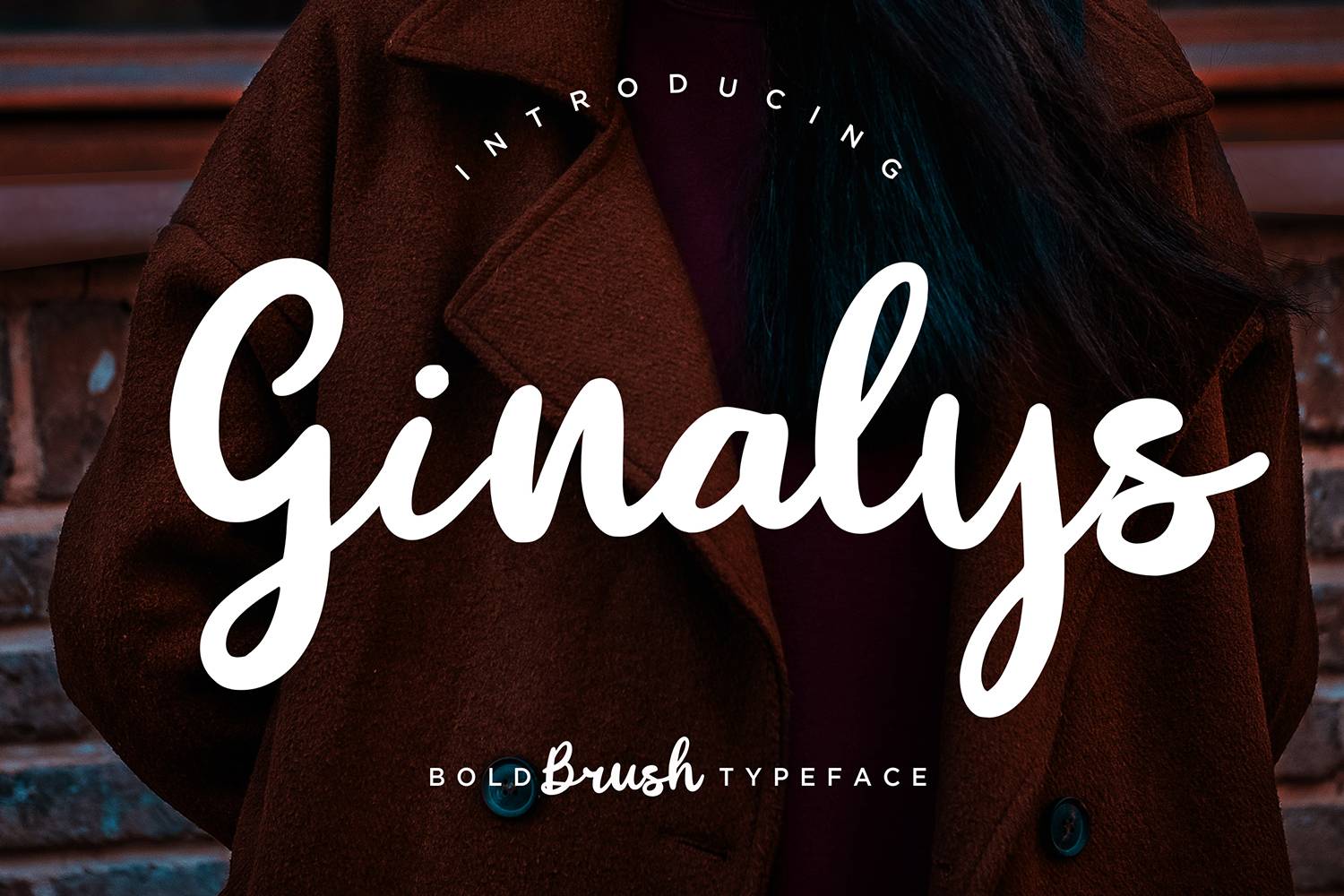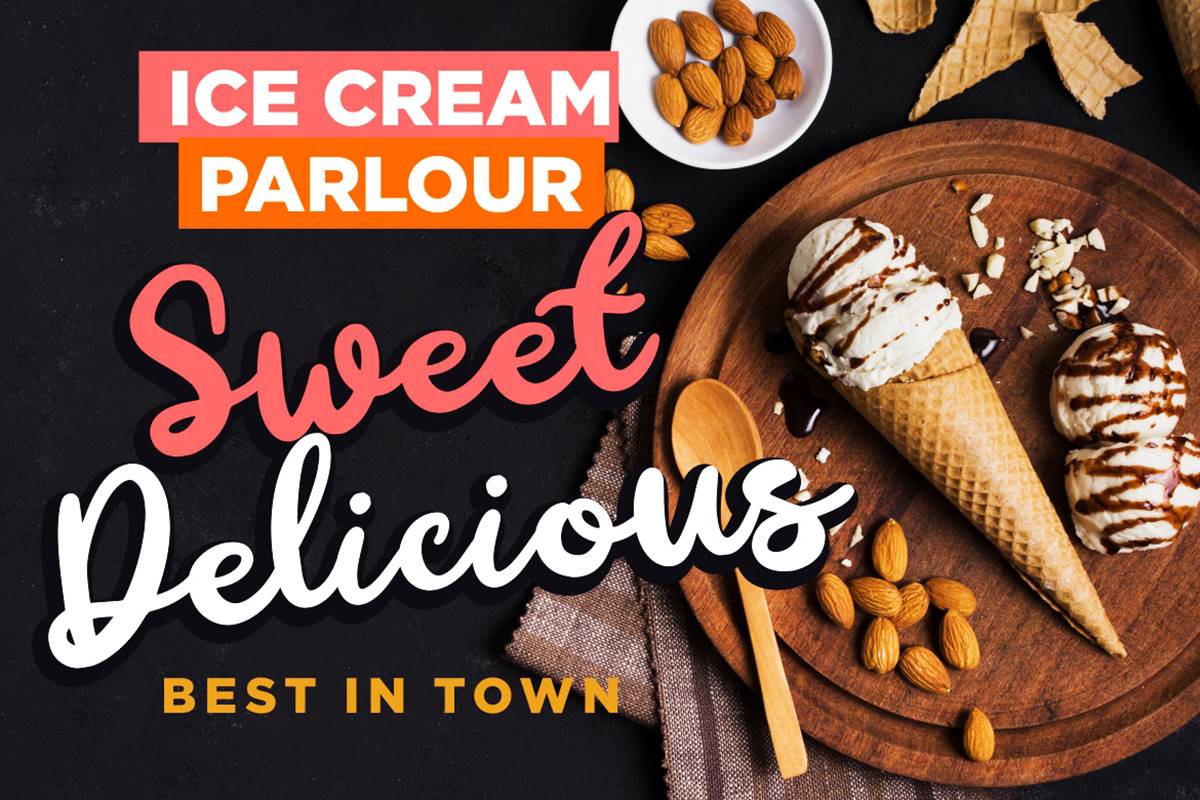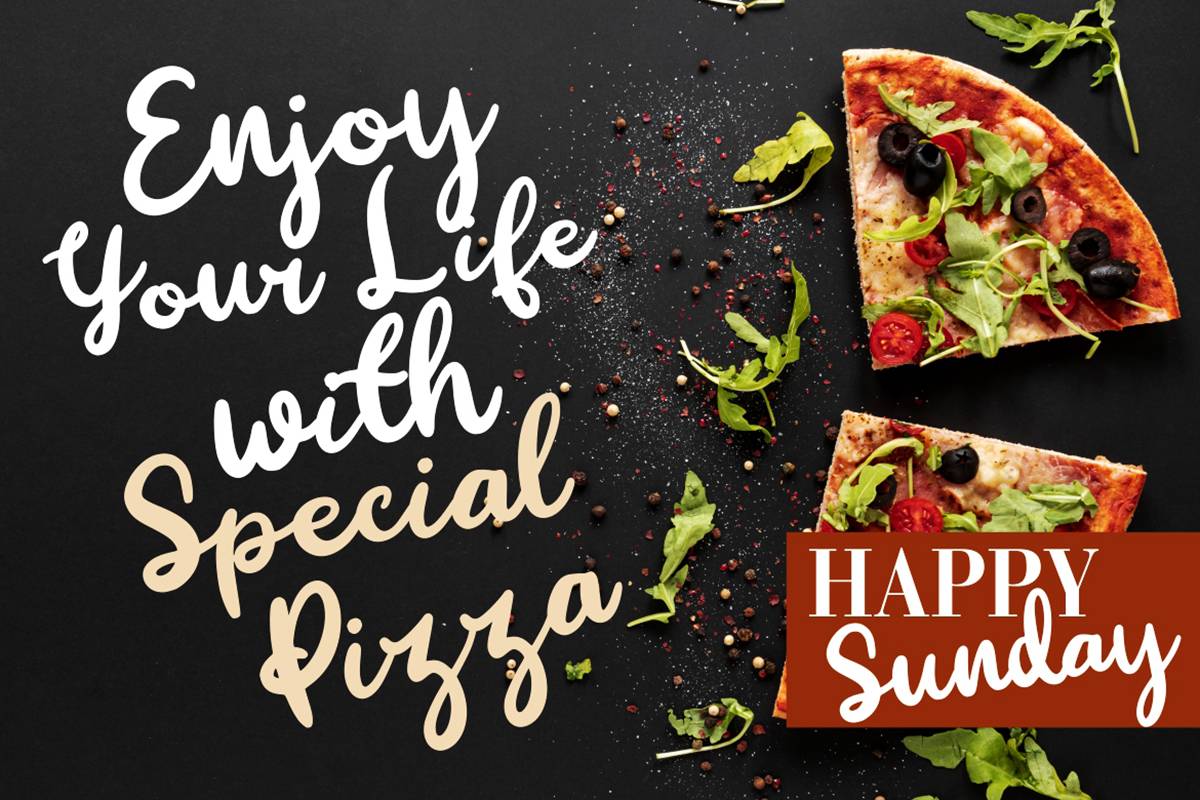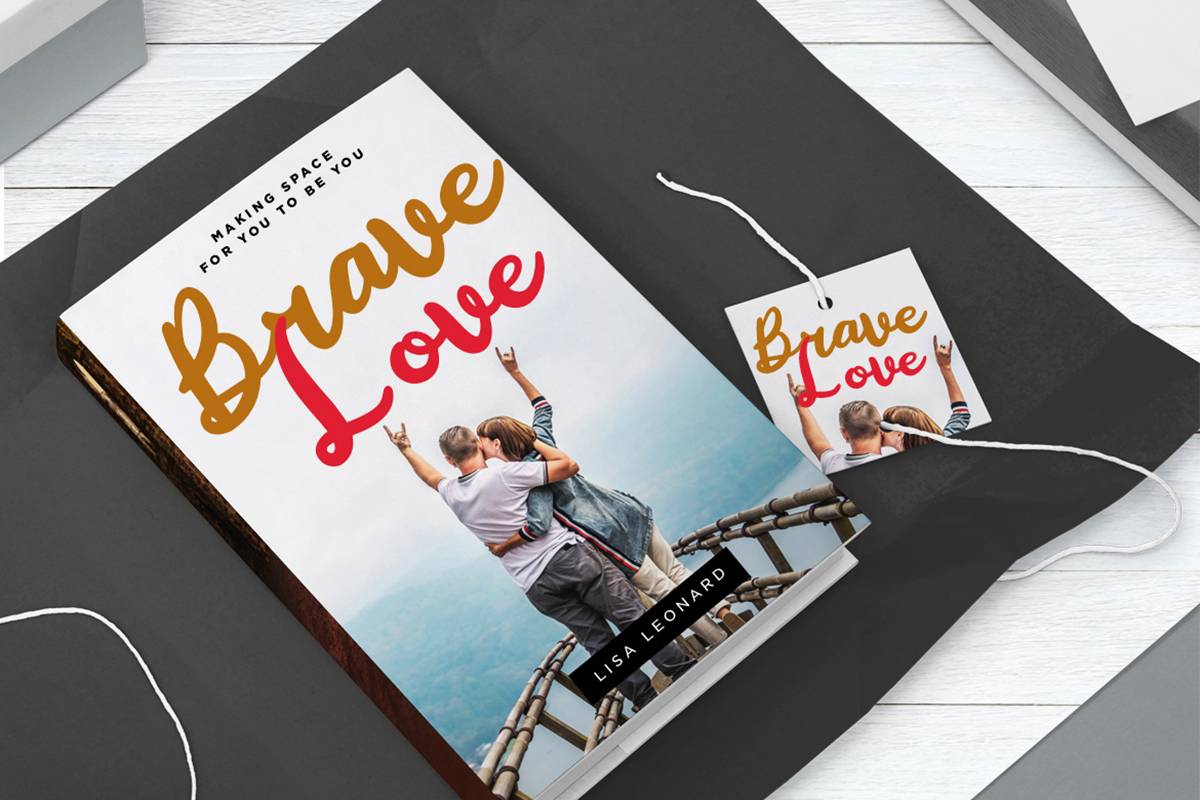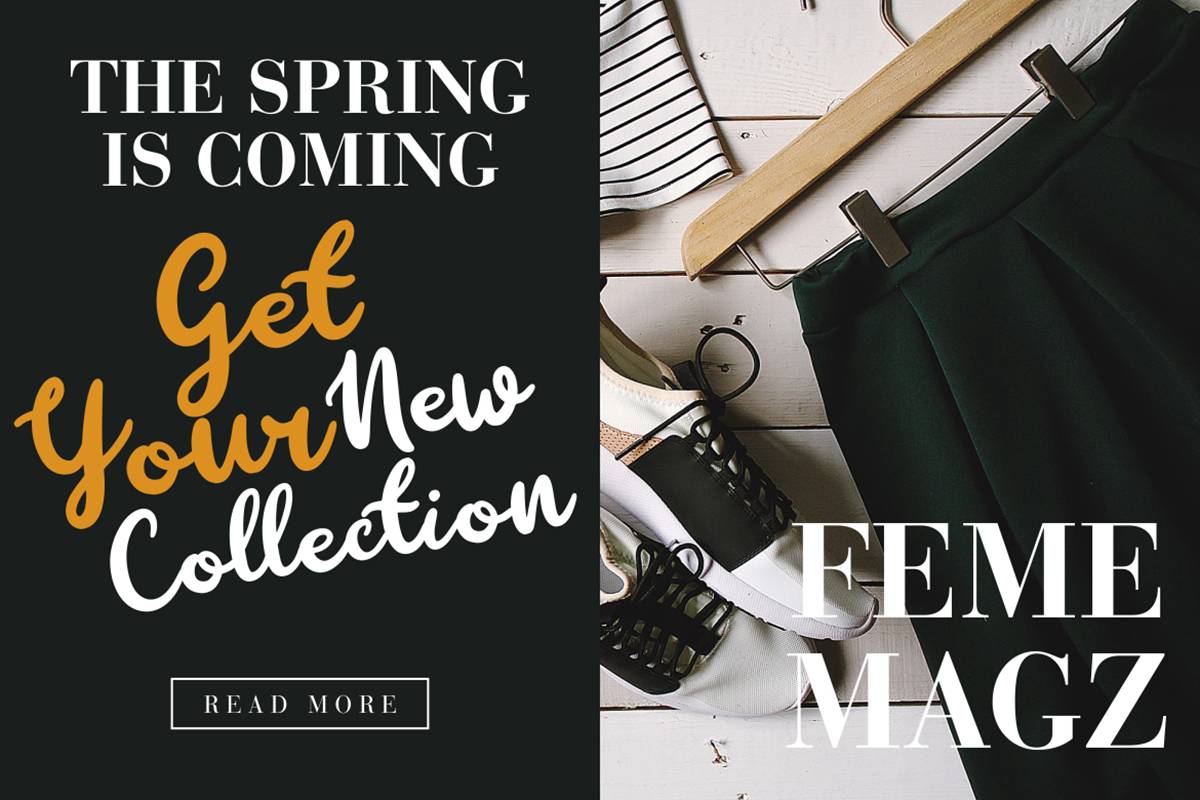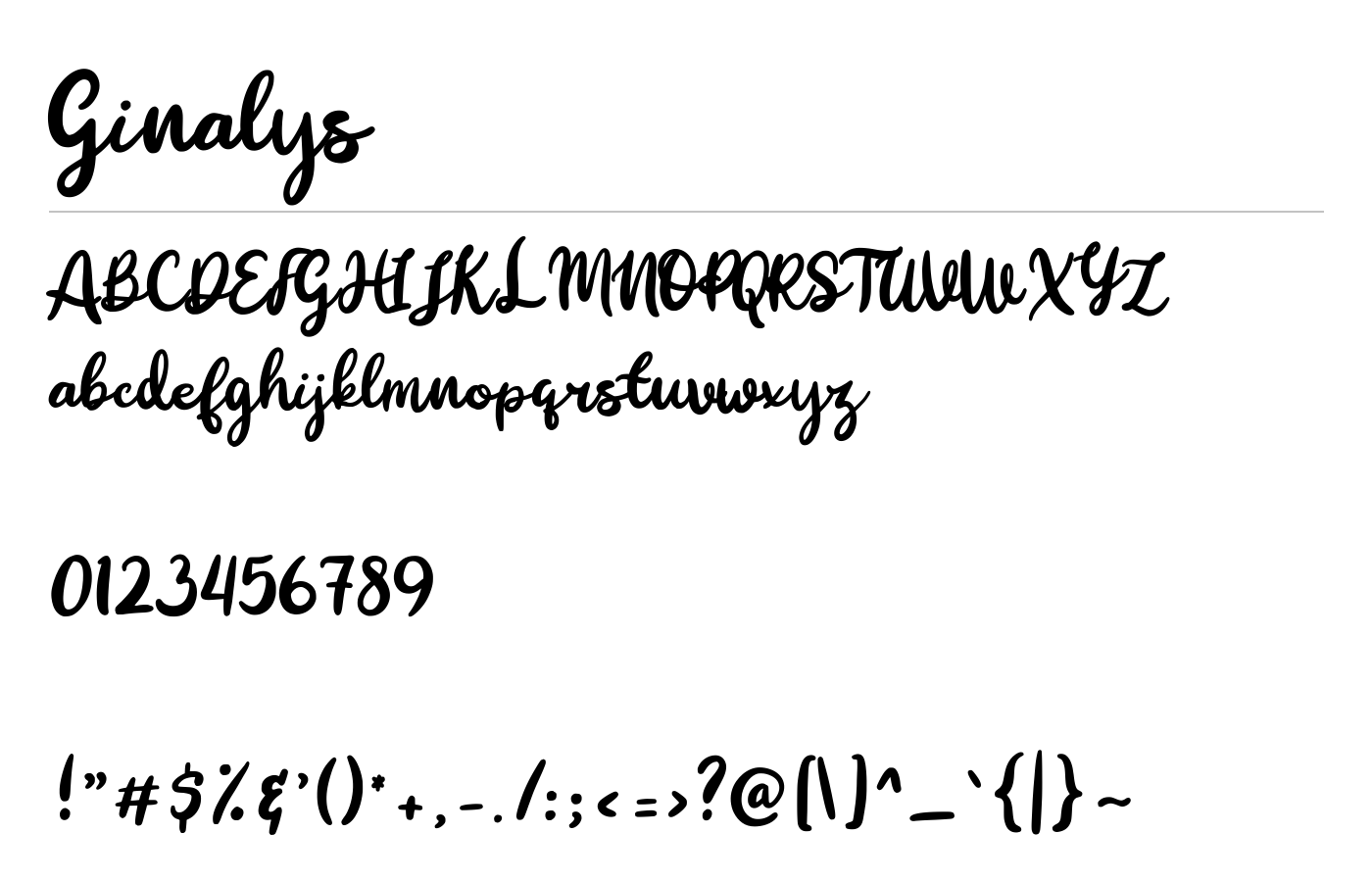
Ginalys is a lively and charming script font characterized by its smooth, flowing strokes and moderate weight, giving it a friendly yet elegant feel. Its handwritten style with playful curves makes it perfect for creative, casual branding, invitations, and social media graphics where a personal touch is desired. This font stands out in designs that want to balance approachability with stylish flair.
Ginalys Font
About Ginalys Font
| Font family | Ginalys Font |